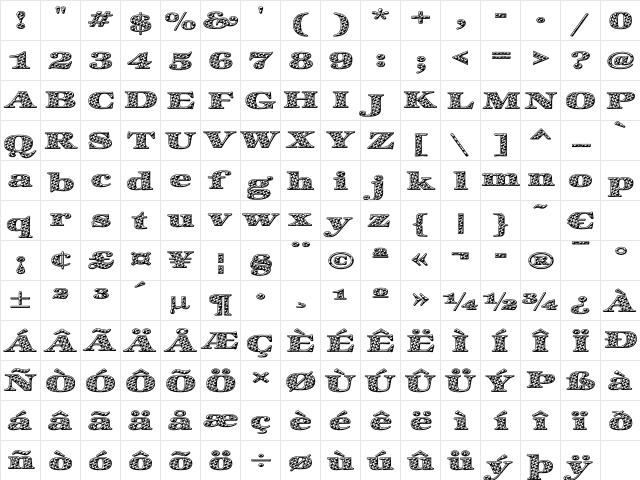
Zapf Int'l 'BubbleWrap' Heavy
Design Context for Zapf Int'l 'BubbleWrap' Typeface
Zapf Int'l 'BubbleWrap' trades formality for fun, with bouncy, characterful letterforms that bring warmth and energy to any project.
Well-suited to food and beverage brands with personality, educational materials, and fun-forward identities.
Font Pairing: Pairs well with a rounded or humanist sans for body copy, maintaining the friendly tone without relying on Zapf Int'l 'BubbleWrap' to carry extended reading.
Pro Tip: Use Zapf Int'l 'BubbleWrap' at larger display sizes where its expressive character can land. Pair with a clean, simple sans for body copy to maintain readability.